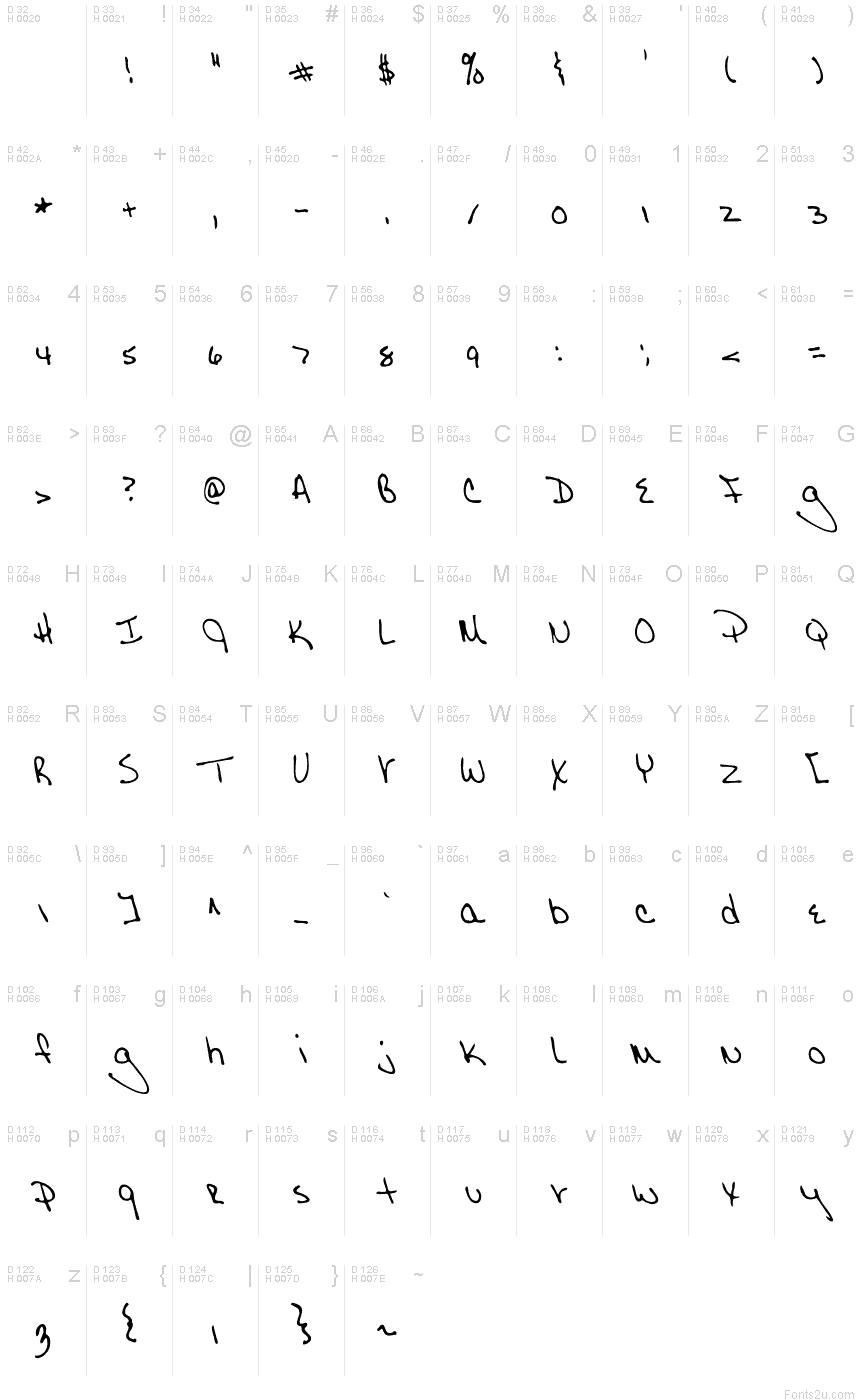
Morgan Regular
Morgan is a handwritten free font with loose, rounded script shapes and a long, looping stroke that gives the line a personal, drawn-on feel. The letters keep a casual rhythm, with open curves, loose connections, and a smooth finish that feels less formal than a tidy script.
Morgan suits wedding invitations, greeting cards, quote graphics, personal logos, stationery, and boutique packaging, where a handwritten line can soften the layout without losing character. It also brings a warm touch to social posts, labels, and short headline treatment when the design needs something intimate rather than rigid.